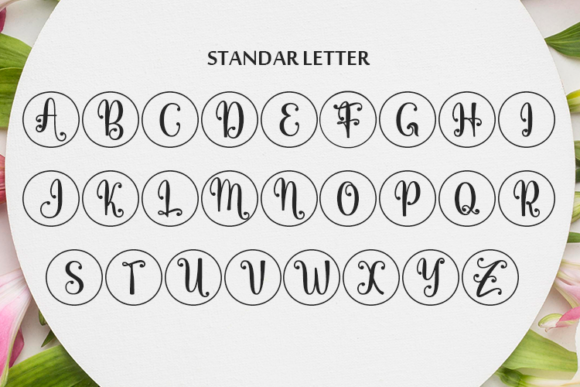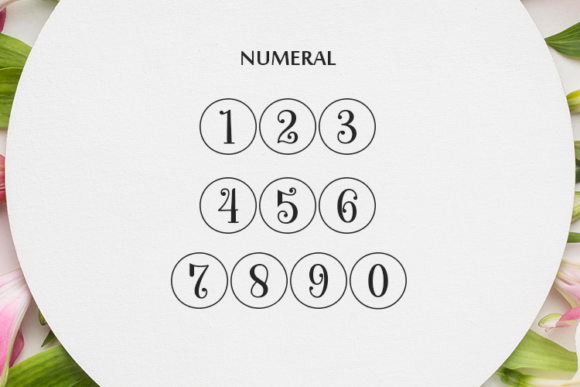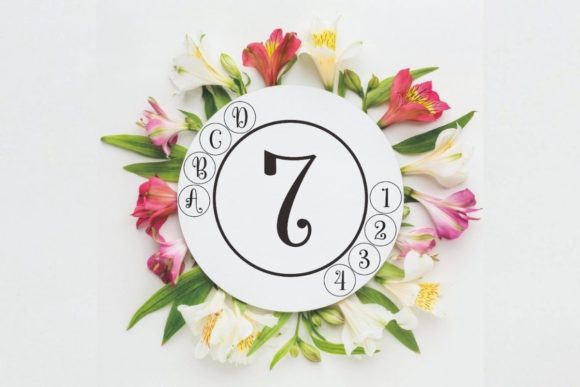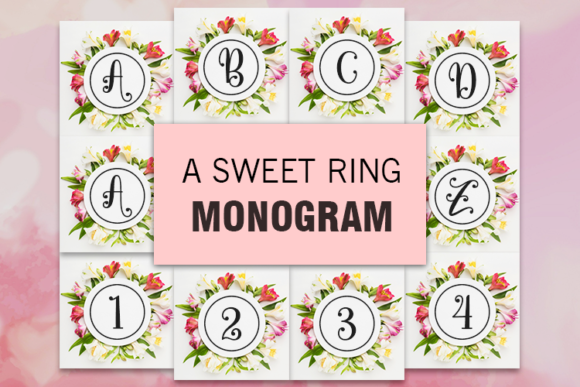
The Sweet Ring Monogram Font: A Designer’s Delight
I’ll never forget the time I was working on a custom wedding invitation project, and my client asked for a special monogram font that would match her elegant yet playful style. I scoured the internet, tried countless fonts, but nothing seemed quite right. That was until I stumbled upon the Sweet Ring Monogram Font. It was love at first sight! 💕
This beautiful font features each script glyph in a simple circle, giving it a charming and whimsical feel. In this article, I’ll share my experience with the Sweet Ring Monogram Font, its features, and how to make the most of it in your designs.
• ✨ Elegant and playful script glyphs in a simple circle
• 💫 Perfect for monograms, wedding designs, and other special projects
While the Sweet Ring Monogram Font is amazing, there are a few minor things to keep in mind:
• ⚠️ Limited character set, which might not be suitable for extensive text
• 🤔 May require some adjustments for optimal spacing and alignment
The Sweet Ring Monogram Font was created with the intention of providing a beautiful, yet simple monogram solution for designers and crafters. The designer aimed to create a font that would be versatile, elegant, and easy to use. While I couldn’t find information on the specific designer, it’s clear that their goal was to create something special.
Q: Is the Sweet Ring Monogram Font suitable for large text blocks?
A: While the font is beautiful, it’s best suited for short text, monograms, or titles due to its limited character set and decorative nature.